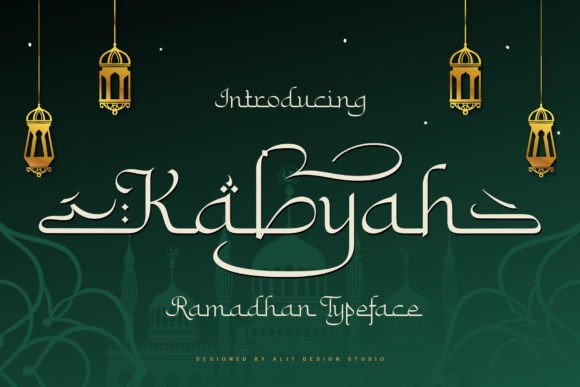
Journey into the realm of elegance and sophistication with Kabyah Font, a captivating script font that exudes Eastern charm and timeless beauty. Inspired by the intricate artistry of traditional calligraphy, Kabyah captivates with its graceful curves and intricate detailing, adding a touch of refined luxury to any design project.
Unleash the power of Kabyah and experience the magic of its carefully crafted characters. Each letter dances with elegance, inviting you to create designs that resonate with a timeless appeal. Whether you're crafting captivating branding, enchanting invitations, or stunning editorial layouts, Kabyah's unique and striking appearance will leave an unforgettable impression on your audience.
With Kabyah as your creative companion, your designs will transcend the ordinary and enter the realm of the extraordinary. Its versatility extends from alluring logos and eye-catching headlines to captivating social media posts and captivating marketing materials. Let Kabyah's timeless beauty elevate your designs and leave a lasting legacy of elegance.
Embrace the boundless possibilities that await you with Kabyah. Its PUA encoding unlocks a treasure trove of amazing glyphs and ligatures, empowering you to unleash your creativity and craft designs that captivate and inspire. Kabyah is more than just a font; it's an artistic expression that transforms your designs into masterpieces of visual storytelling.
Indulge in the opulence of Kabyah and let your imagination soar. Experience the joy of creating designs that radiate sophistication and leave a profound impact on your audience. With Kabyah as your creative ally, the possibilities are endless.